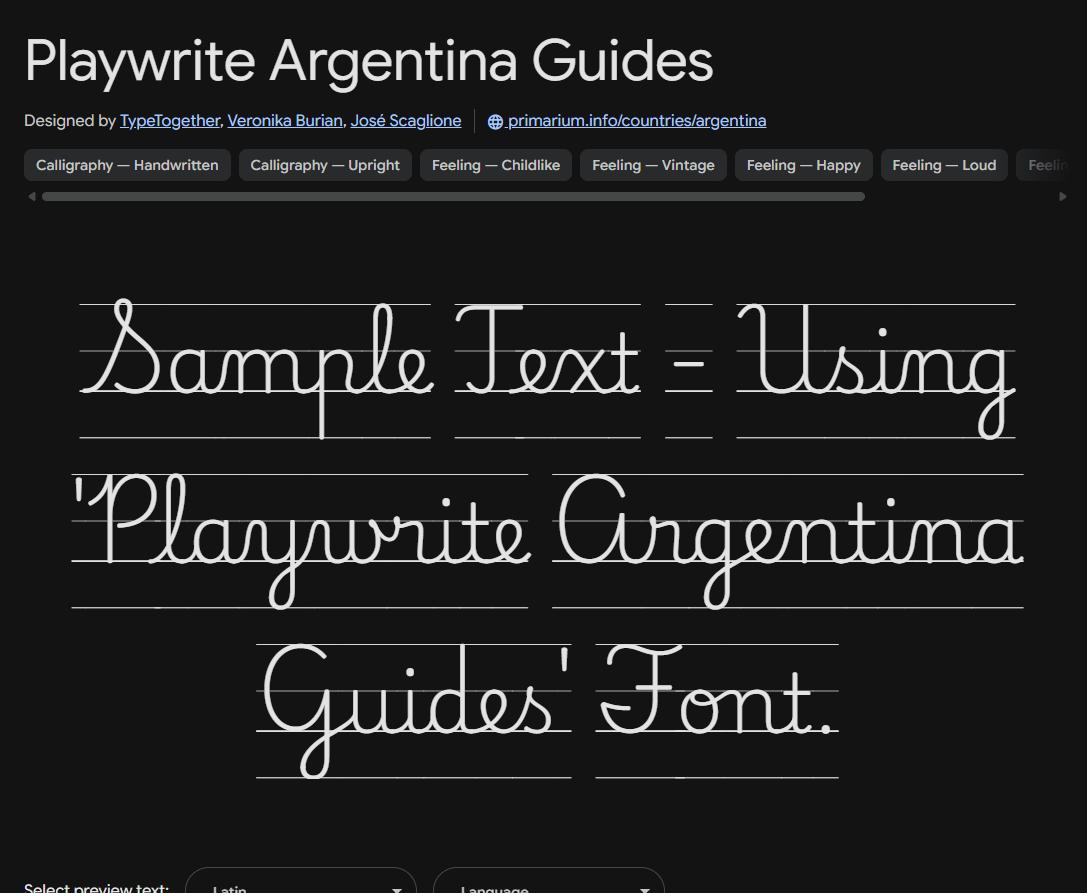
Playwrite Argentina Guides, a specialized single-style typeface engineered by TypeTogether's founders Veronika Burian and José Scaglione, functions as a sophisticated bridge between localized pedagogical standards and contemporary typographic engineering. By integrating structural ruling lines directly into the font's architectural framework, this script facilitates orthographic precision by defining the strict spatial relationships between ascenders, descenders, and the baseline according to Argentine educational models. Beyond its aesthetic cursive qualities, the typeface employs advanced OpenType logic to manage complex joining behaviors and stroke continuity, transforming digital glyphs into a high-fidelity tool for kinetic handwriting acquisition that preserves regional ductus within a scalable, modern format.
The Playwrite Argentina Guides font family serves as a sophisticated pedagogical asset, meticulously engineered to replicate the upright calligraphic standards of Argentine primary education while infusing digital environments with a textured, handwritten authenticity. This typeface utilizes a monolinear stroke construction and precise verticality to achieve an upright calligraphic profile, yet it deliberately embraces a rugged and loud visual cadence that departs from traditional academic sterility. By synthesizing vintage aesthetics with childlike proportions, the font's architecture-defined by its generous x-height and rhythmic kerning-evokes a happy and playful atmosphere essential for foundational literacy development. This unique design approach leverages advanced OpenType features to maintain structural integrity while projecting a visceral, tactile feeling that is both nostalgic and energetically loud, effectively bridging the gap between historical script heritage and the raw, unpolished energy of early-stage penmanship.
Playwrite Argentina Guides, a specialized pedagogical tool engineered by TypeTogether's Veronika Burian and José Scaglione, is fundamentally unsuitable for high-density information environments or professional corporate branding due to its integrated ruling lines and instructional skeletal structure. Designed specifically to facilitate primary school motor skill development, the typeface features persistent horizontal guides that create excessive visual noise and interference when applied to long-form body copy or small-scale UI elements. From a technical standpoint, the fixed-height guide layers disrupt the vertical rhythm of traditional typesetting and compromise the readability of complex nomenclature in legal, medical, or financial documentation where clean stroke modulation and distinct letterforms are critical. Utilizing this script-based educational model in a commercial context-such as luxury retail or technical engineering manuals-fails to meet accessibility standards for high-contrast legibility and imposes a heavy cognitive load that obscures semantic hierarchy in favor of its singular, niche didactic function.
This typeface features a distinct cursive style modeled after Argentine educational standards, incorporating integrated horizontal guidelines to assist with letter alignment. The aesthetic is defined by a 14-degree cursive slant and consistent x-height ratios that reflect the specific rhythmic patterns of South American penmanship.
The integrated guide strokes extend across the glyph's width to create a continuous linear visual field that dictates the vertical rhythm of the text block. Because these lines are baked into the character glyphs, they maintain a fixed baseline and cap-height relationship, preventing vertical drifting even when tracking values are modified.
This font is specifically engineered for primary education environments where students are learning to master cursive connections and spatial consistency. By utilizing the Variable Font (VF) format, educators can adjust weights while maintaining the skeletal integrity required for pedagogical tracing exercises.
The intentional italicization creates a sense of forward momentum that guides the reader's eye across the page in a fluid, continuous motion. This oblique angle necessitates careful consideration of kerning pairs to avoid visual crowding, particularly where high-frequency ligatures intersect with the guideline strokes.
Since the guide strokes are part of the font's vector outlines, they generally share the same color properties as the letterforms in standard text editors. However, advanced users can use OpenType features or vector expansion to isolate the guide components, allowing for multi-layered CSS styling or distinct stroke-fill color assignments.
While highly readable at larger sizes, the intricate guide lines can lead to visual clutter on small-scale mobile screens or low-resolution displays. Rasterization issues often occur at pixel densities below 300 PPI, where the thin guide strokes may alias and interfere with the contrast ratio of the primary character strokes.
The transition between versions typically maintains consistent side bearings and character widths to ensure layout stability across different design iterations. The "Guides" version utilizes a wider bounding box to accommodate the horizontal rules, which can influence how auto-justification algorithms handle line breaks in responsive containers.
Minimalist layouts with ample white space allow the complex detail of the Argentine script and its guiding lines to remain the focal point. This regional variant pairs exceptionally well with neo-grotesque sans-serifs, providing a humanistic contrast to the rigid geometry of typefaces like Helvetica or Inter.
The fluid connections and varied stroke terminals successfully mimic the appearance of a fountain pen used in a structured educational setting. Its effectiveness in simulation is bolstered by the use of contextual alternates that vary the entry and exit strokes based on the preceding character's terminal position.
High-resolution printing preserves the delicate transition points between letters, ensuring that the script looks continuous and authentic. At 1200 DPI, the Bezier curves maintain their mathematical precision, preventing the aliasing artifacts that often plague lower-quality script fonts during large-format output.